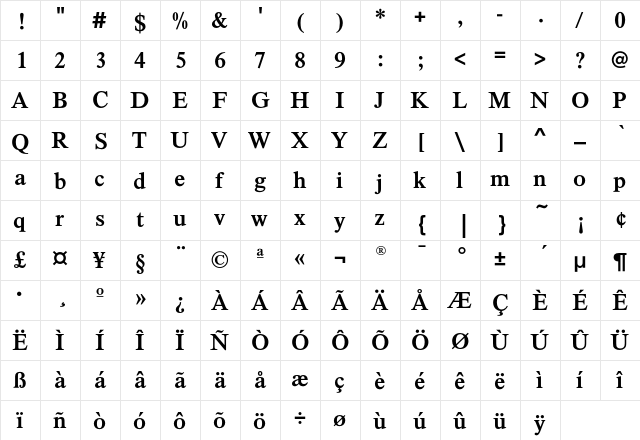
TimelessEF-Bold Regular
Design Context for TimelessEF-Bold Typeface
TimelessEF-Bold takes a measured approach to typography — its balanced proportions and neutral character make it a reliable workhorse for both digital and print work. The heavy weight commands attention and anchors typographic hierarchies.